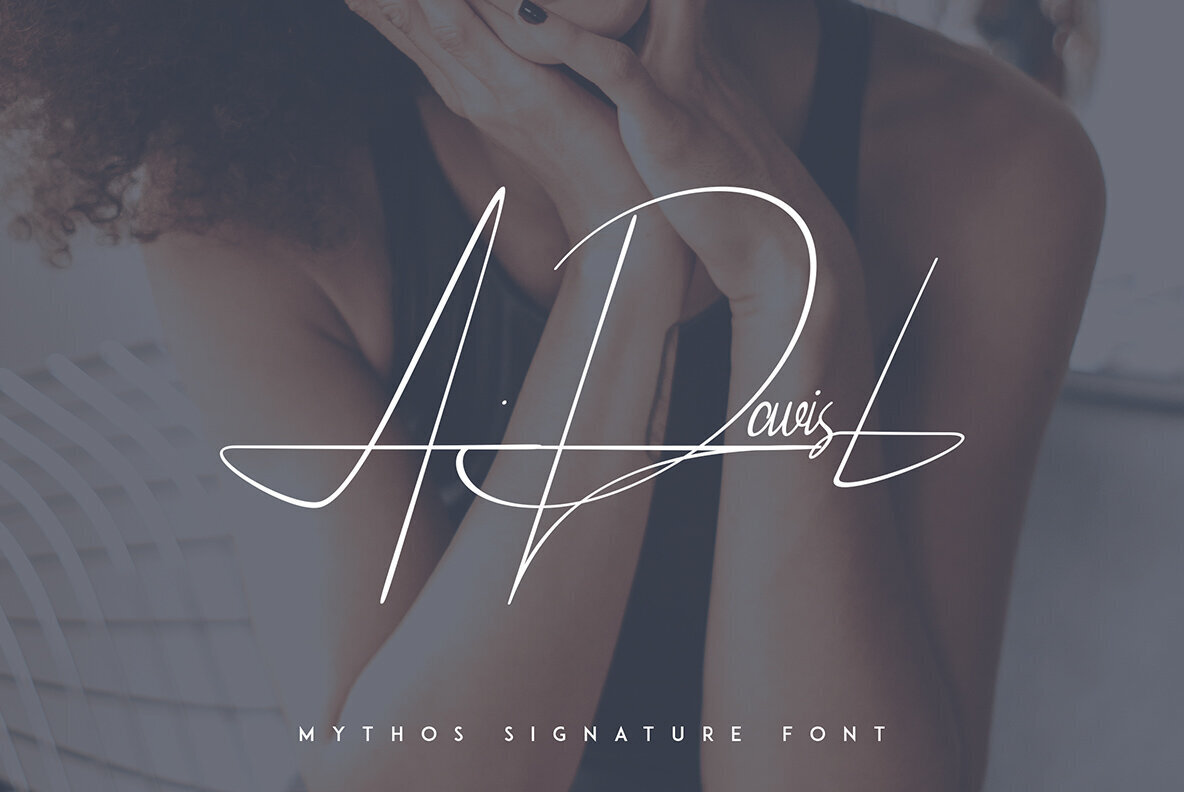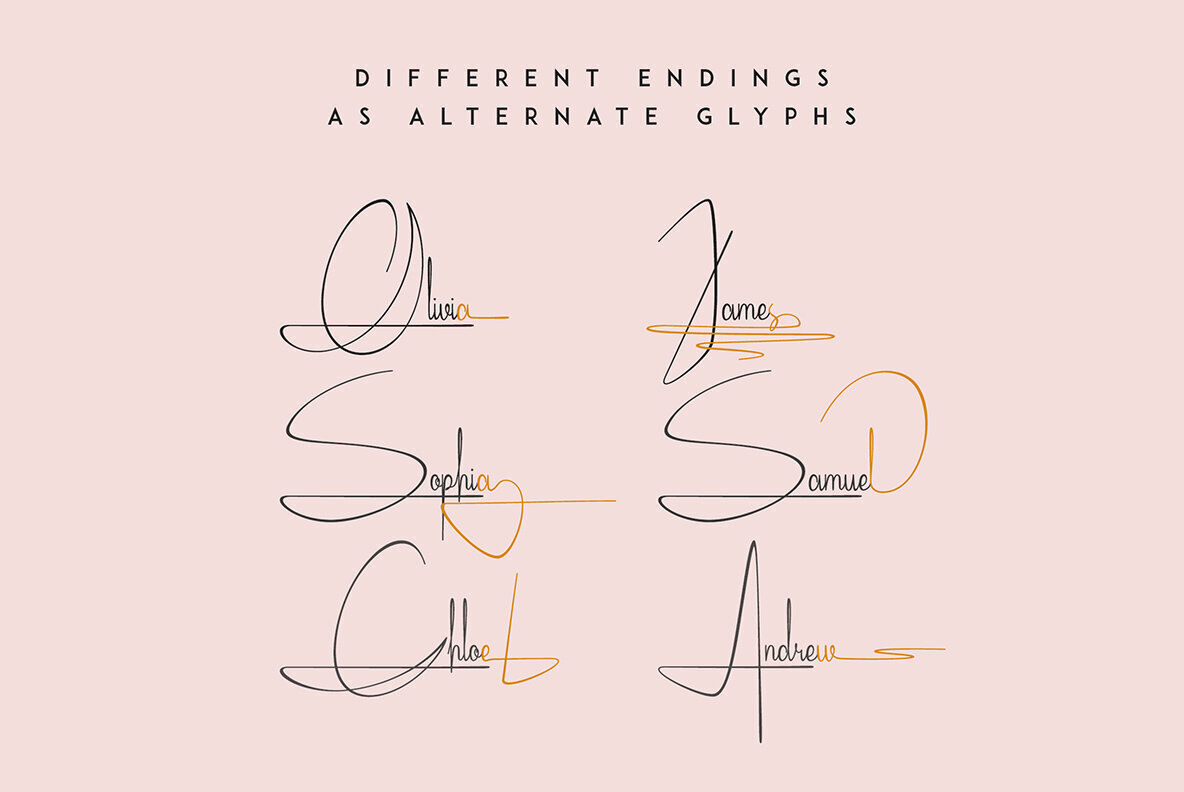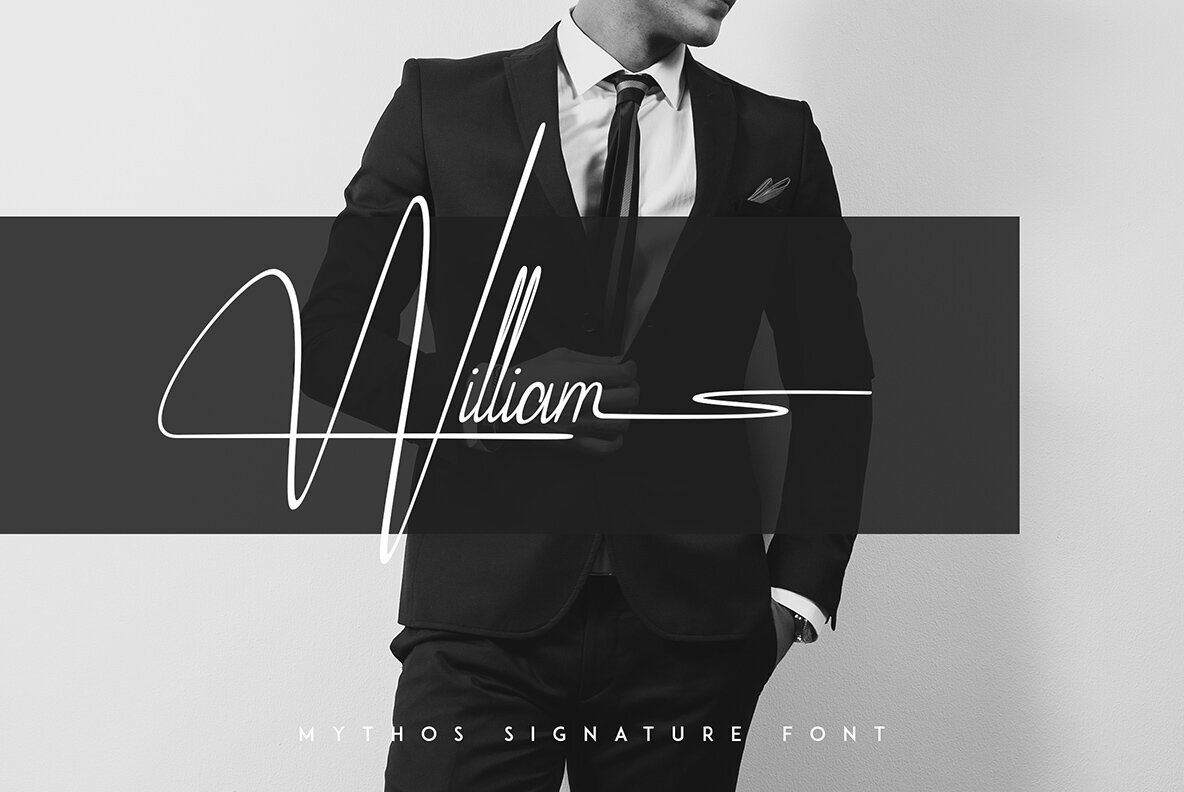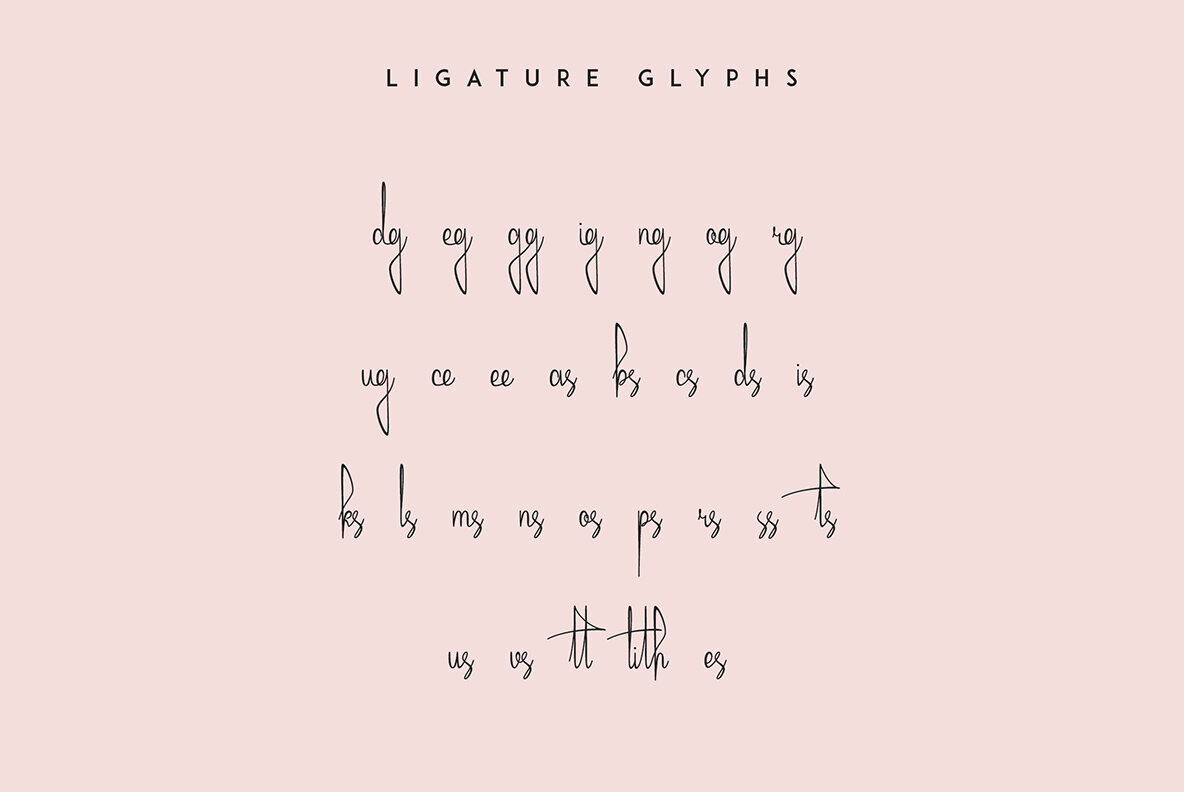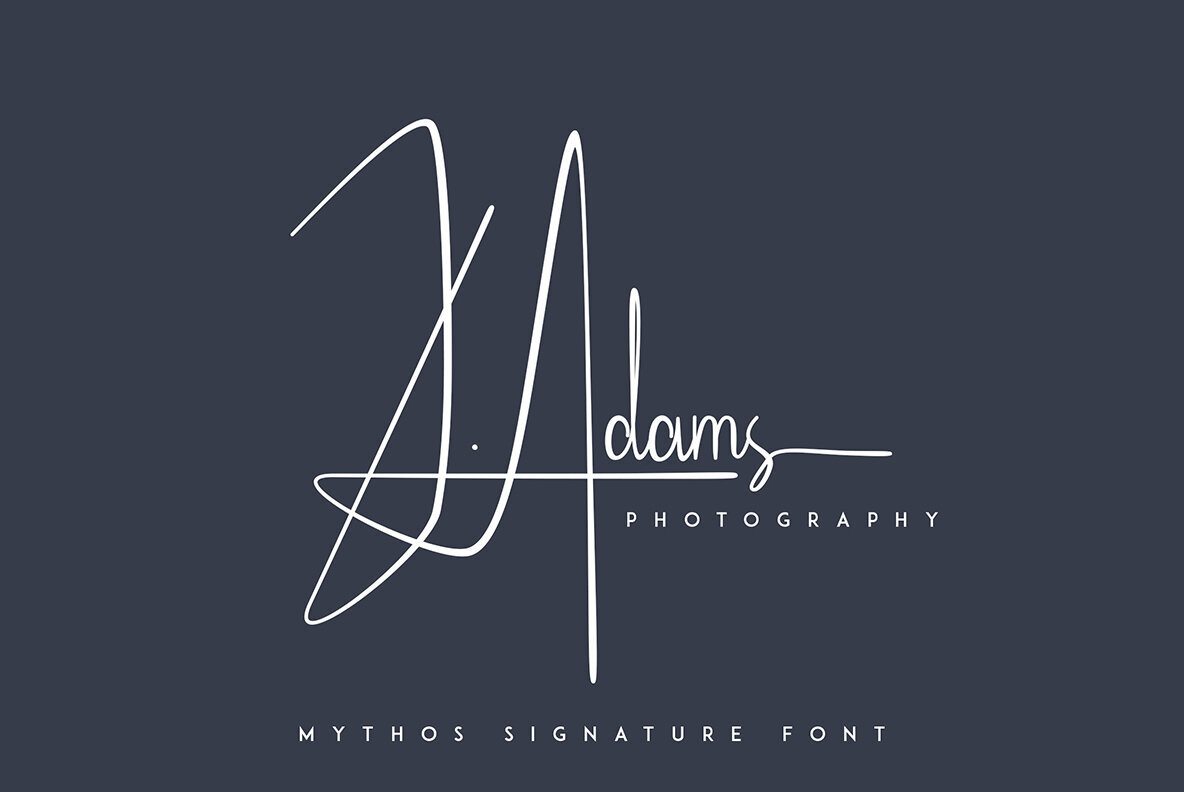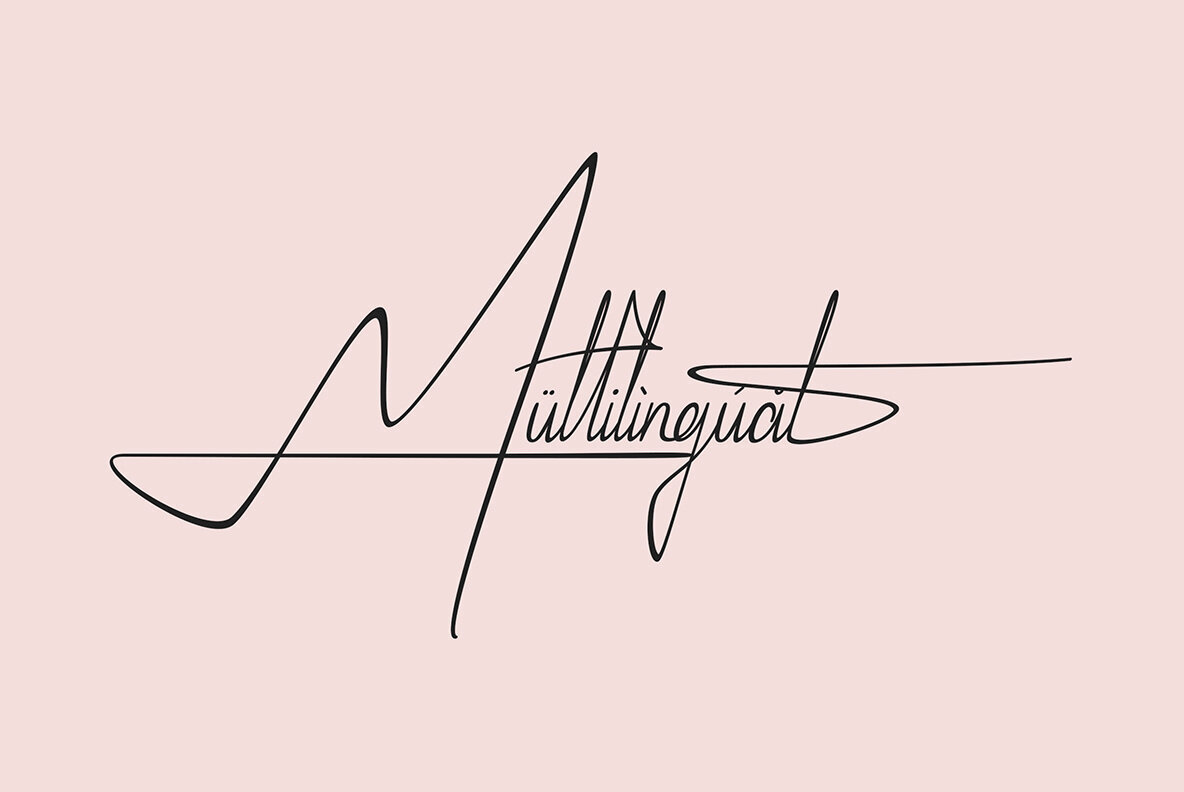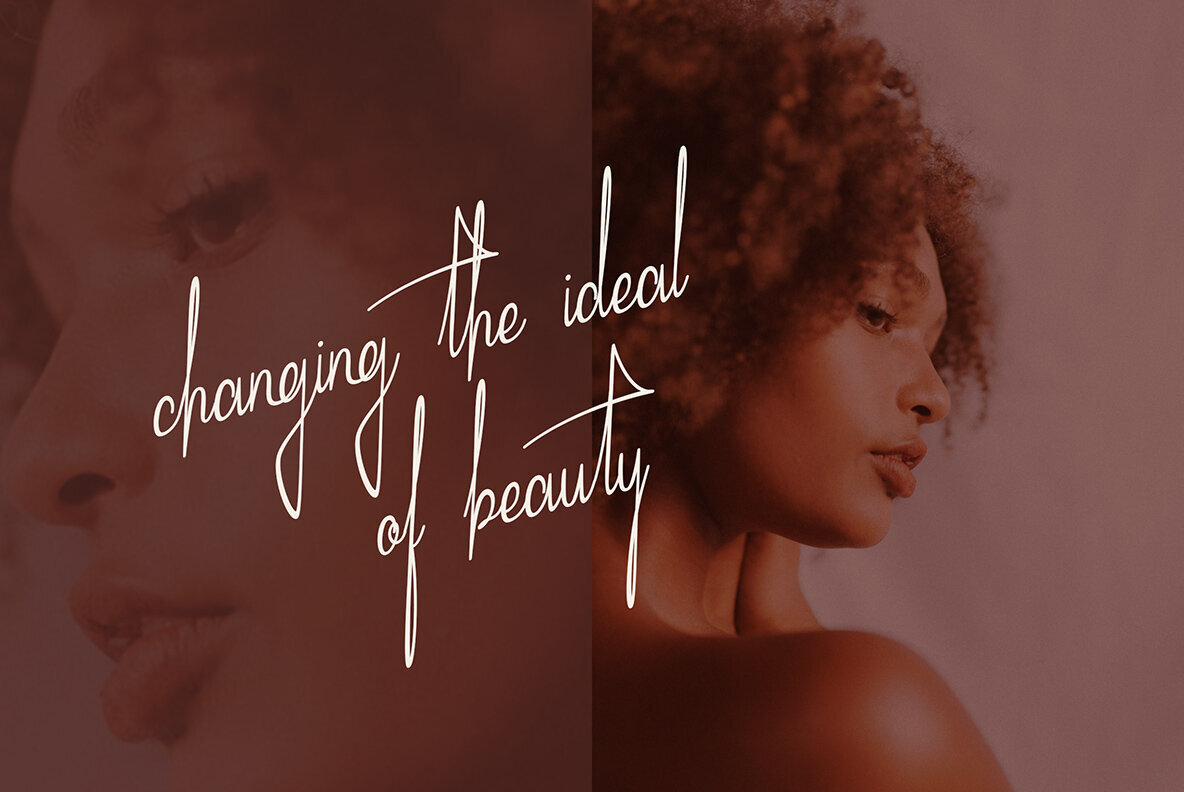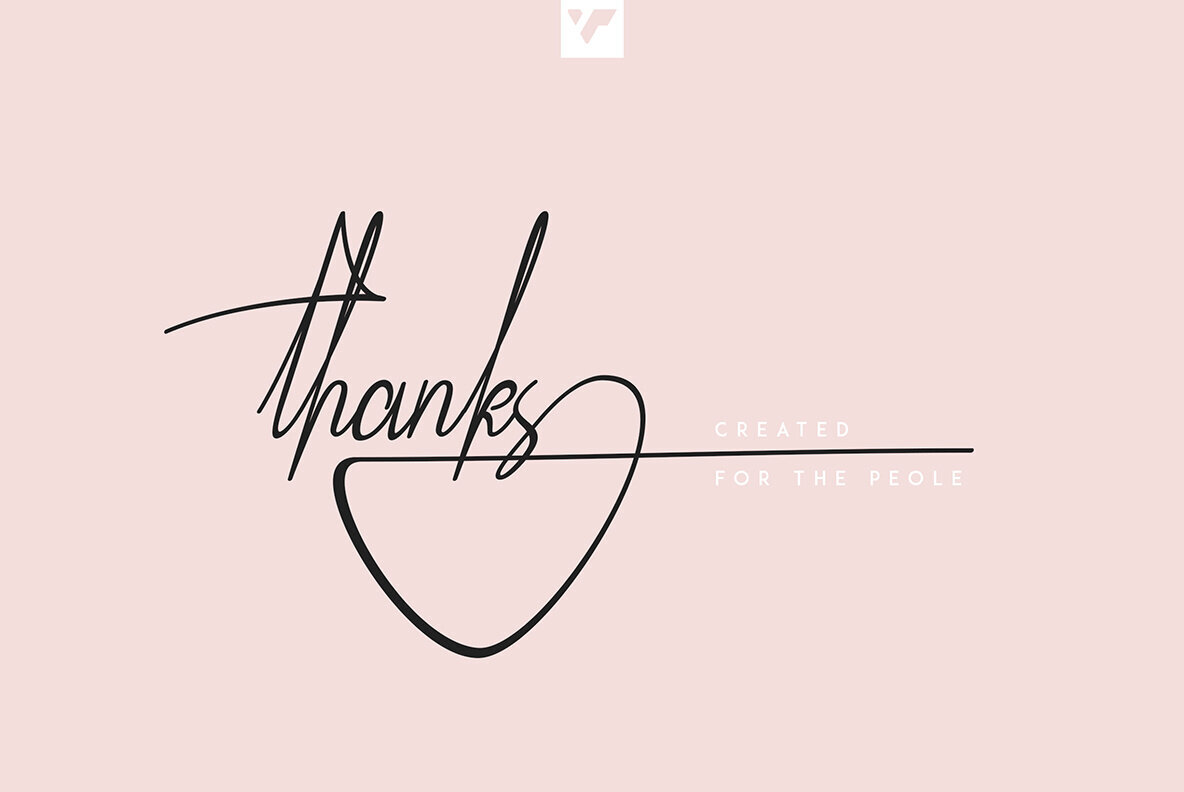
Mythos Font
Introducing Mythos, an enchanting organic signature script that adds a touch of elegance to your designs and projects. With its regular and italic versions, Mythos offers a versatile range of possibilities for expressing your creativity. Mythos is crafted with meticulous attention to detail, capturing the fluidity and grace of hand-drawn signatures. Its organic strokes flow seamlessly, creating a harmonious balance between sophistication and approachability. This remarkable script typeface doesn't just excel in its aesthetic appeal; it also boasts an impressive language support, accommodating 87 languages from around the world. So whether you're designing for a global audience or looking to add a personal touch to your work in your native language, Mythos has got you covered. With Mythos, you can effortlessly infuse your projects with a touch of elegance and charm. From wedding invitations to branding materials, personal blogs to advertisements, this signature script is bound to leave a lasting impression. So unleash your creativity, embrace the artistry of Mythos, and let its graceful curves and beautiful letterforms transport your designs to new heights.